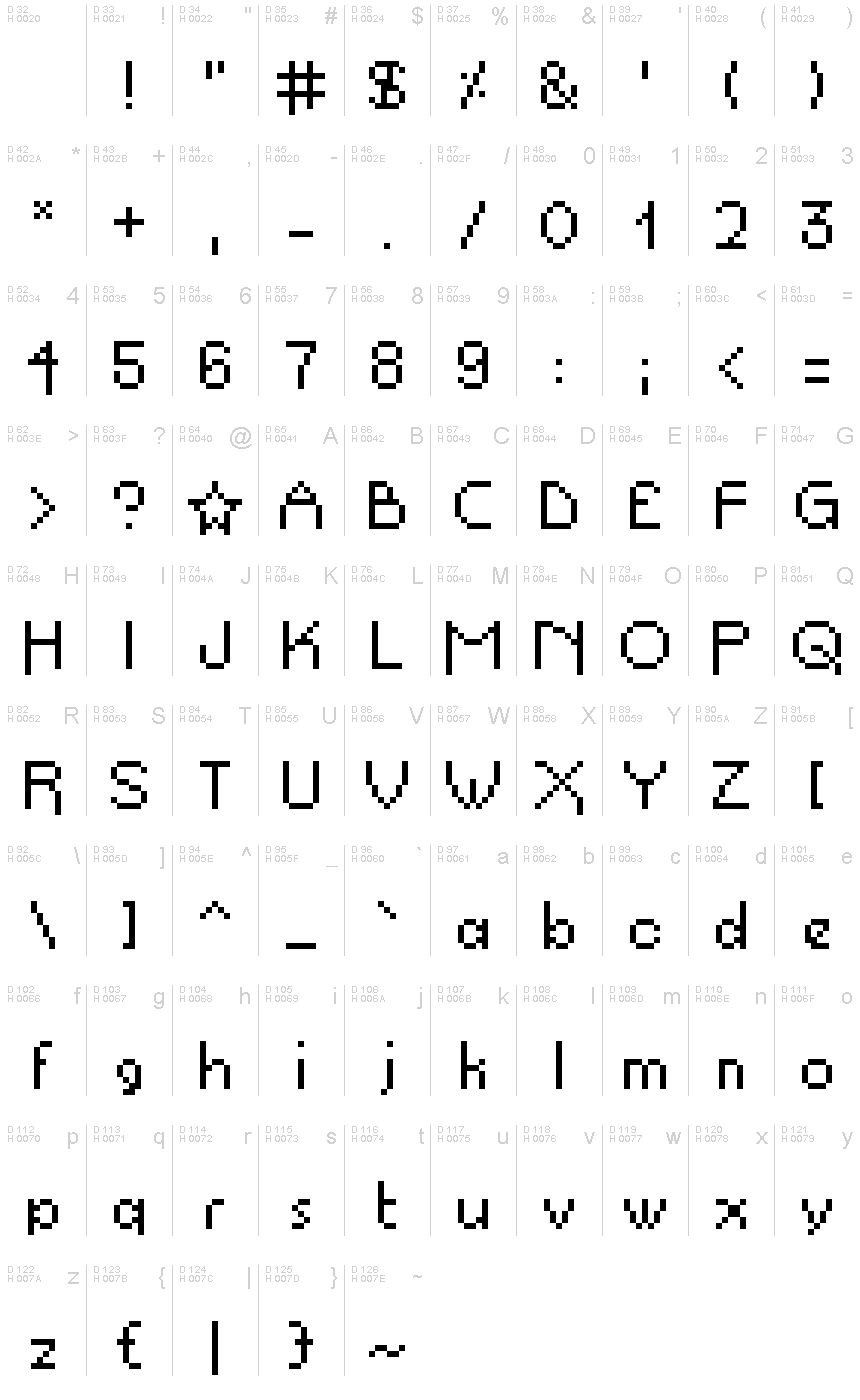
PropelRepel
Propel Repel is a captivating bitmap font that exudes a raw, pixelated charm. Designed by Hazel Abbiati, this font boasts an intriguing juxtaposition of angular shapes and sharp edges, creating a visually striking aesthetic.
Its uncompromising, retro-inspired style lends itself particularly well to digital art, game design, and eye-catching typography. The unique character forms and compact spacing make Propel Repel an ideal choice for bold headlines, futuristic branding, or to infuse a sense of nostalgia into any design project.
This font's versatility and distinctive flair make it a compelling addition to any designer's toolkit.
A font specifically designed for use in Adventure Game Studios. It is best viewed at a 10-pixel size. Alias and outline fonts should be layered over the base font to achieve the desired effect.